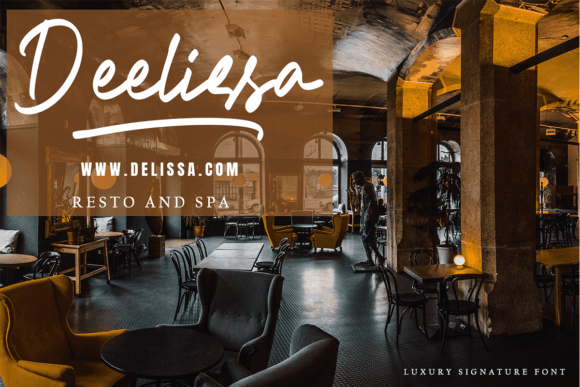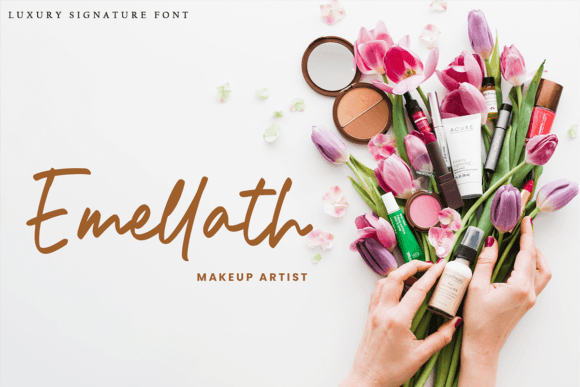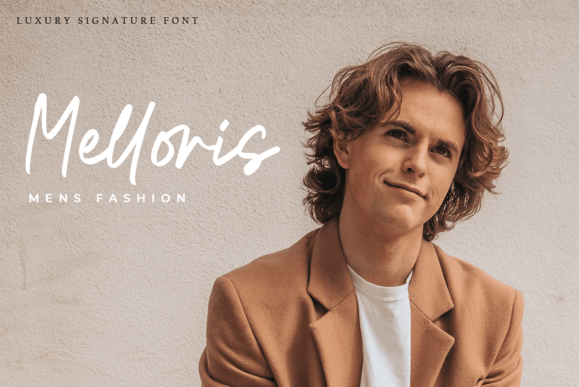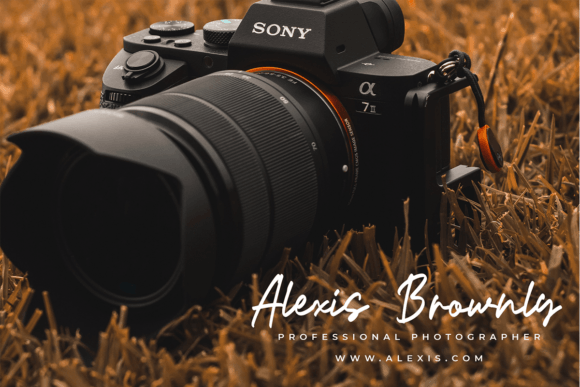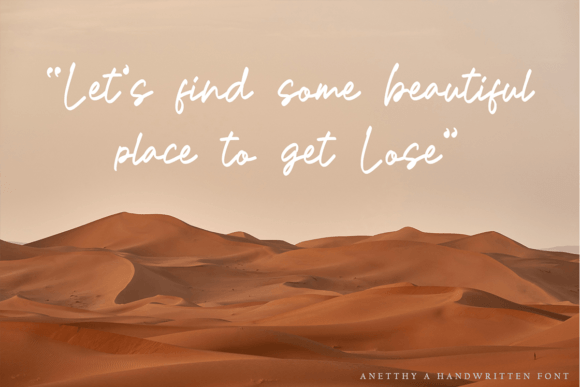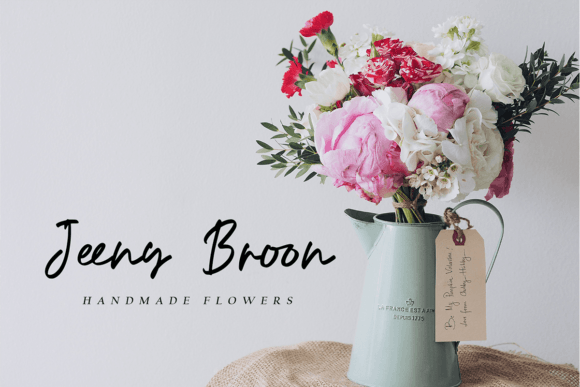
Introduction to Anetthy Font
Anetthy is a sweet and beautiful handwritten font perfect for logos, greeting cards, posters, book covers, and many more.
Add it to your fonts library, and it will become your favorite in no time at all This font is PUA encoded, which means you can access all of the glyphs and swashes with ease.
Anetthy Font offers exceptional quality and versatility, making it a valuable addition to your design toolkit. Whether you’re creating for personal projects or commercial use, Anetthy Font delivers professional results.